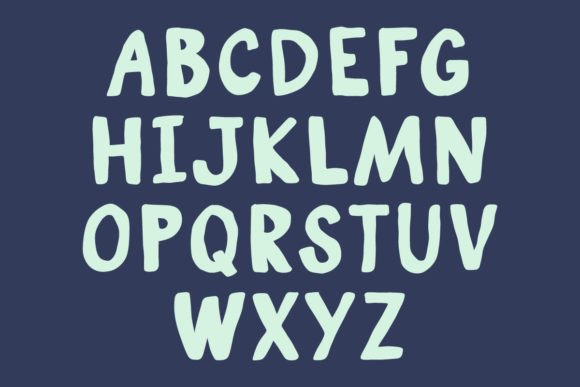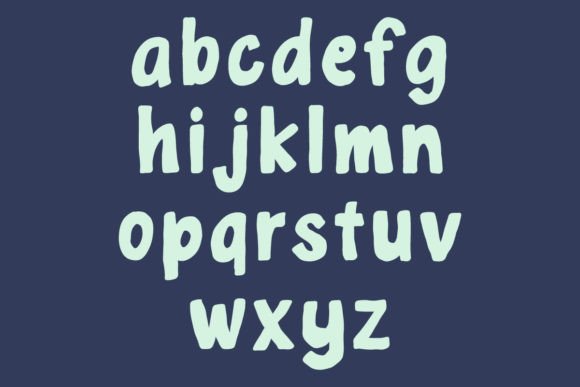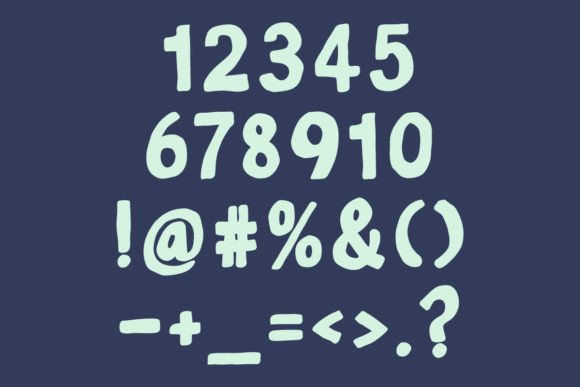
About Wonky
Wonky is a fun and quirky handwritten font. Whether you’re using it for crafts, digital design, presentations, or making greeting cards, this font has the potential to become your favorite go-to font, no matter the occasion!